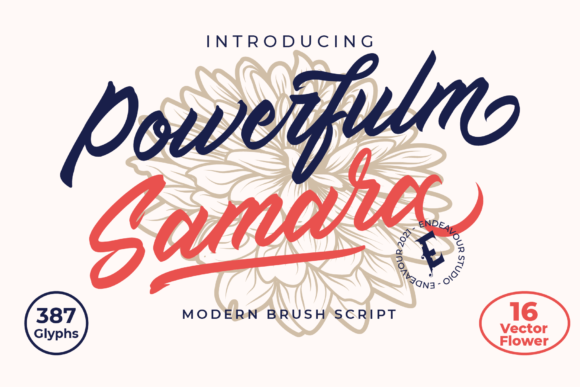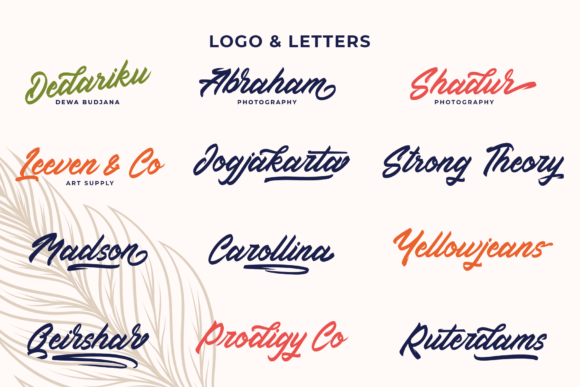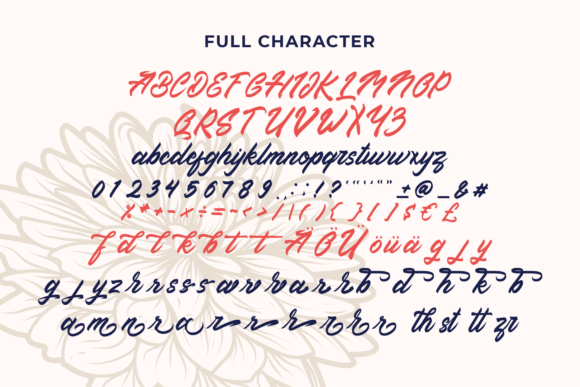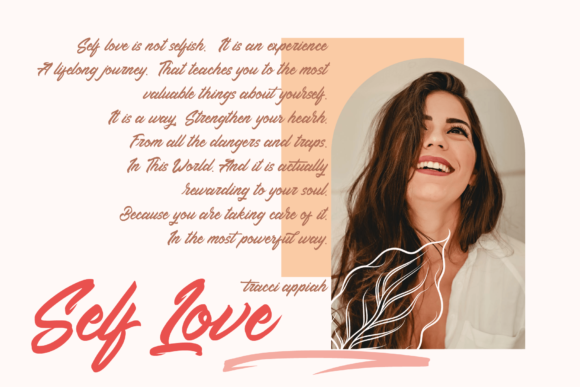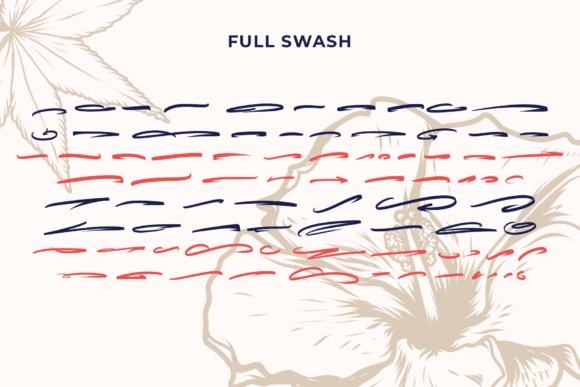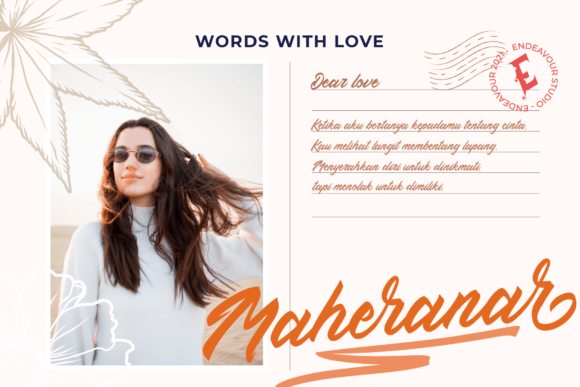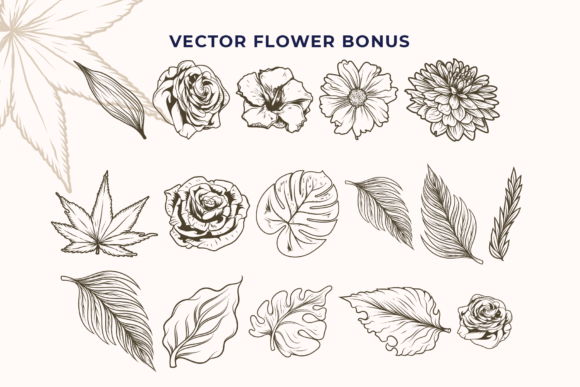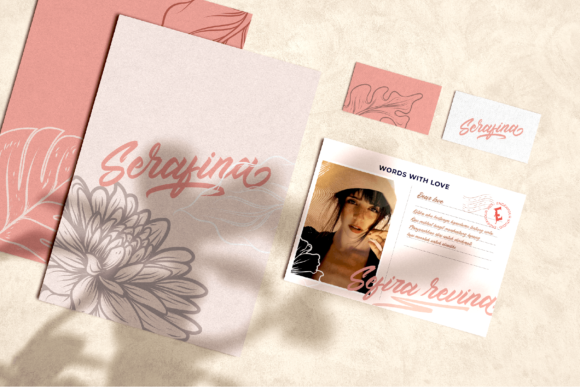
Powerfulm Samara Font
About Powerfulm Samara Font
Powerfulm Samara is a timeless and classic script font that exudes natural elegance and uniqueness. With its versatile style, this font is suitable for a wide range of design projects, giving you the freedom to unleash your creativity.
The distinctive and well-crafted letters of Powerfulm Samara make it a standout font that can elevate various designs. Whether you’re working on logos, branding materials, wedding invitations, quotes, greeting cards, or any other project that requires a touch of sophistication, Powerfulm Samara has got you covered.
The font’s natural and flowing strokes bring a sense of grace and beauty to your designs. It captures the essence of handwritten script, adding a personalized and human touch to your creations. The thoughtful design of Powerfulm Samara ensures that each letter harmonizes with the next, creating a cohesive and visually pleasing aesthetic.
With its PUA encoding, accessing the glyphs and swashes of Powerfulm Samara is a breeze. This feature allows you to explore the various alternate characters and decorative elements that come with the font. You can experiment with different swashes, ligatures, and ornaments to add even more flair and creativity to your designs.
The versatility of Powerfulm Samara enables it to adapt to different design themes and styles. Whether you’re aiming for a vintage-inspired look, a romantic and whimsical vibe, or a modern and clean aesthetic, this font can effortlessly blend in and enhance your overall design concept.
When using Powerfulm Samara, consider the overall composition and balance of your text. Pay attention to spacing and kerning to ensure that the letters flow harmoniously and are easy to read. Experiment with different sizes and weights to create emphasis and hierarchy within your design.
In summary, Powerfulm Samara is a classic script font that offers natural elegance and versatility to a wide range of design projects. Its PUA encoding allows for easy access to alternate characters and decorative elements, enabling you to create unique and captivating designs. Let your imagination run wild and explore the endless possibilities with Powerfulm Samara.